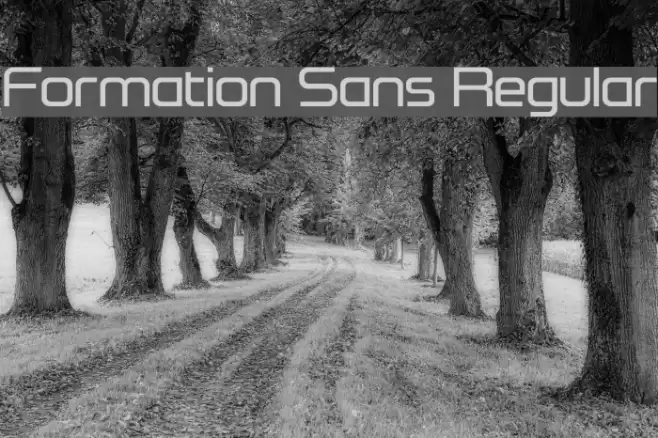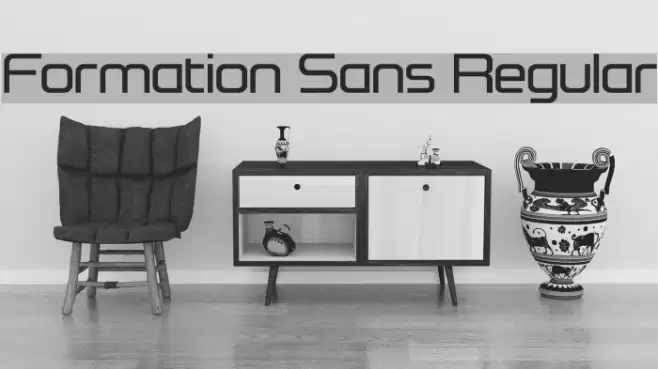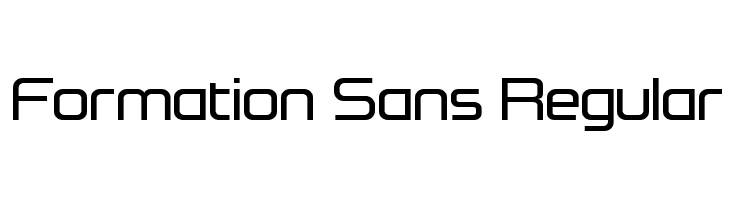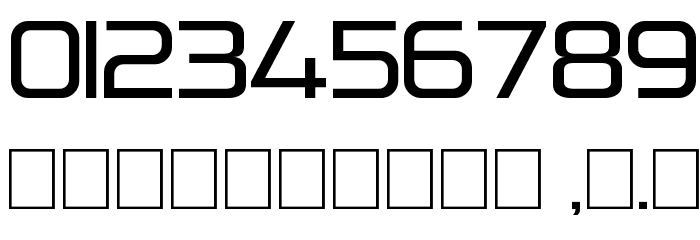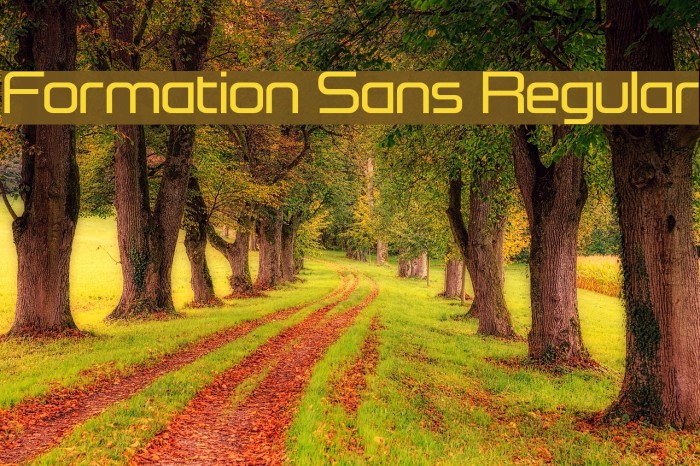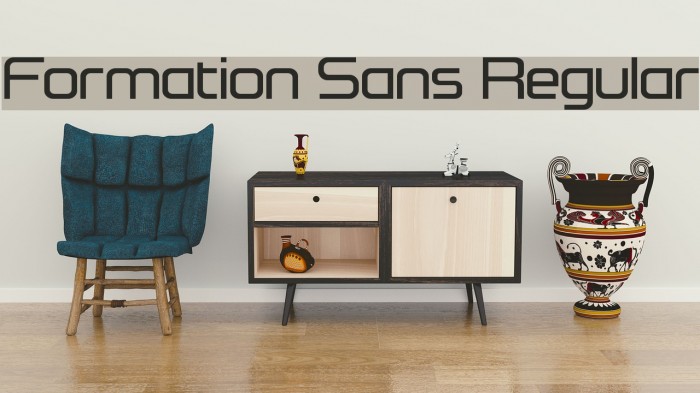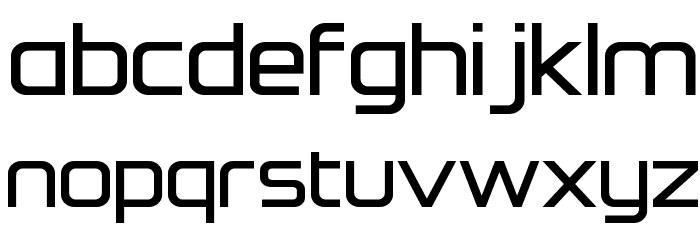
Formation Sans Regular Font
Formation Sans Regular Description
This typeface embodies a sleek and modern aesthetic with its clean lines and geometric structure. The uppercase letters are uniform in height, creating a harmonious and balanced appearance. The lowercase letters maintain a consistent x-height, contributing to readability and a cohesive look. The numerals are distinct and align well with the overall design, making them suitable for various applications. The special characters are crafted with precision, enhancing the font's versatility. Its minimalist style is ideal for contemporary designs, offering a professional and polished look.
A modern, geometric sans-serif font with clean lines and balanced proportions from Uncategorized fonts.